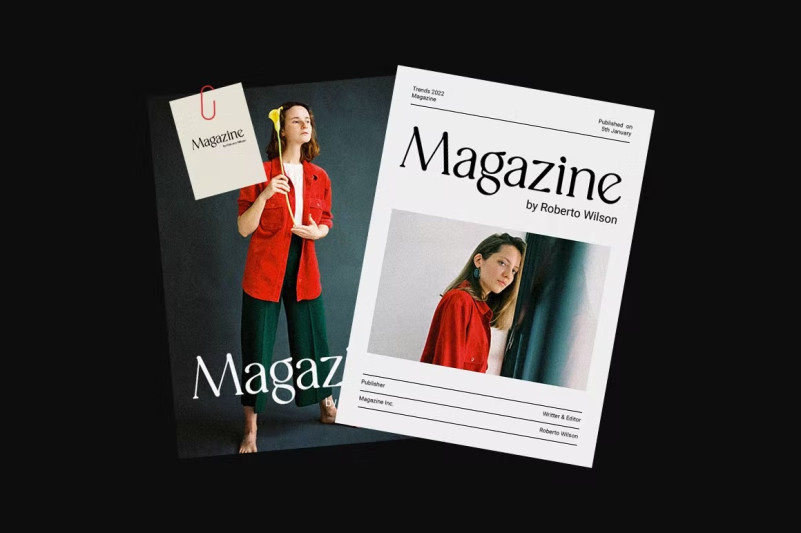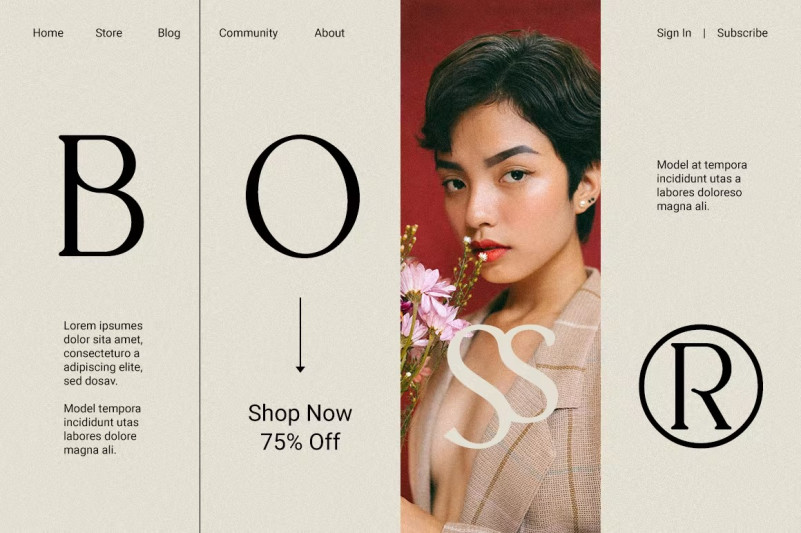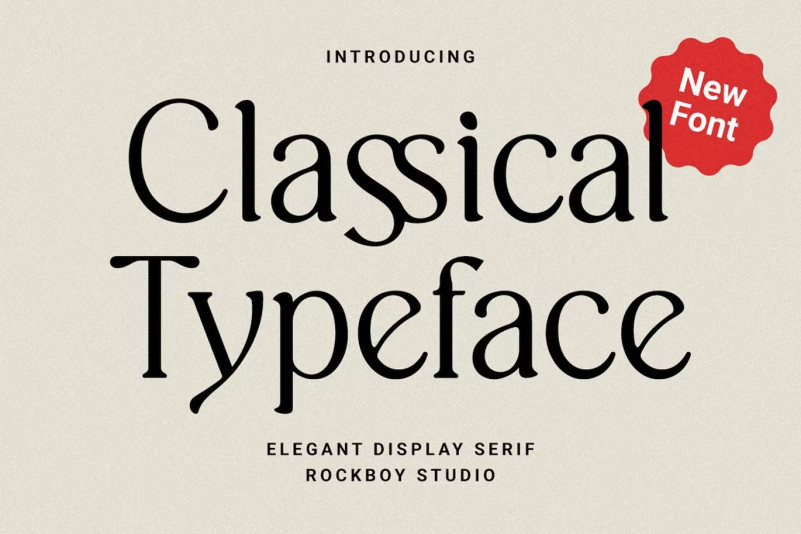
Classical typeface
Classical Typeface is a classic font with Serif. This font is perfect for all kinds of projects like logo design, branding, web design, packaging, social media, and so much more!